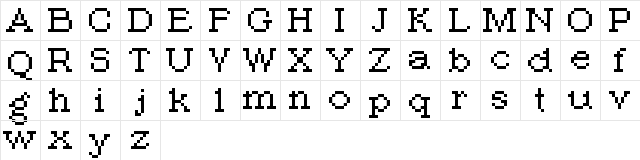
PIXromaPL Normal
Design Context for PIXromaPL Typeface
PIXromaPL offers clean, dependable letterforms without strong stylistic allegiance, making it a practical choice for designers who need flexibility.
Pro Tip: Use PIXromaPL in both headline and body roles to test its range before committing to a single application.